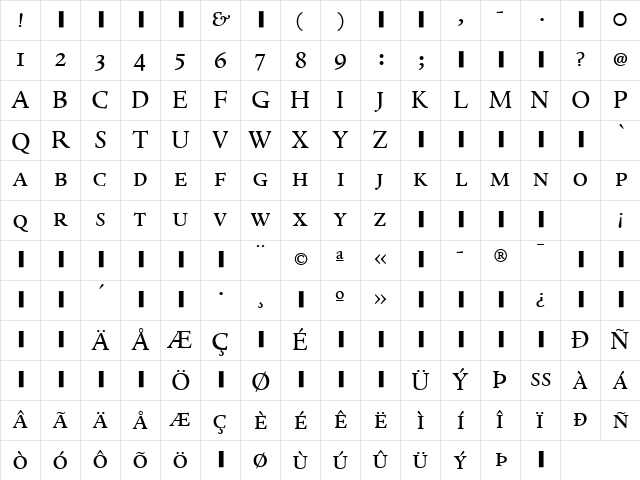
Complete Whitenights LT Std RegularSC Regular glyph index. Displaying only characters natively supported by Whitenights LT Std RegularSC Regular font.
Whitenights LT Std RegularSC is a composed and adaptable typeface that performs quietly and consistently across a wide range of design contexts. Its slender proportions lend an understated elegance to any composition.